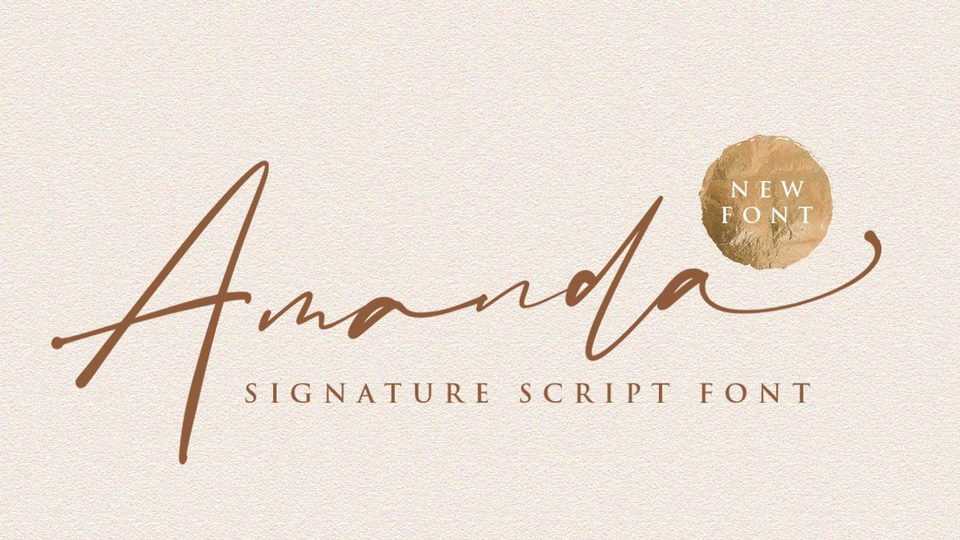
Download Amanda Signature font, minimalistic script inspired by a luxury fashion. It’s a contemporary handwriting font with ligatures and alternative styles ready to add unique look and bloom on your design.
Designer: Vultype Co